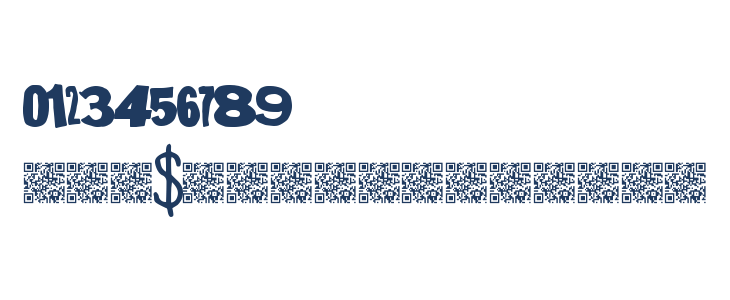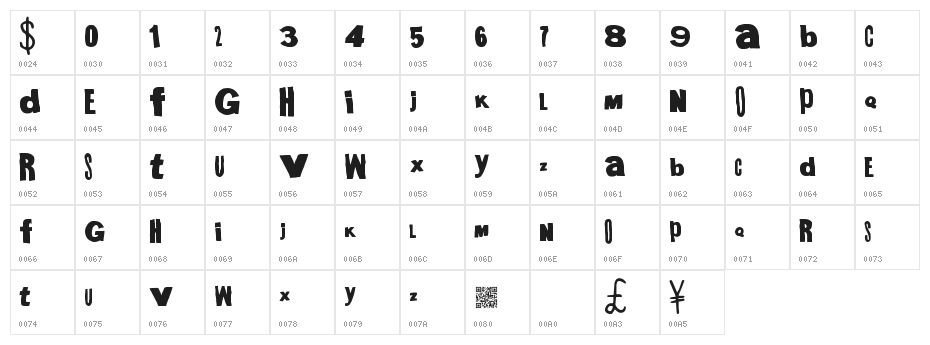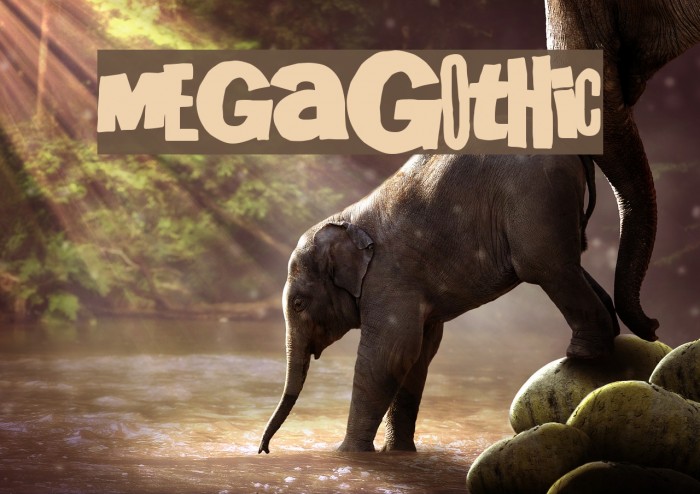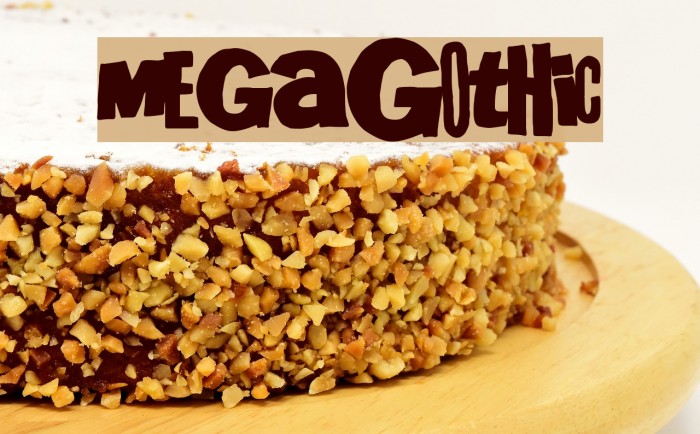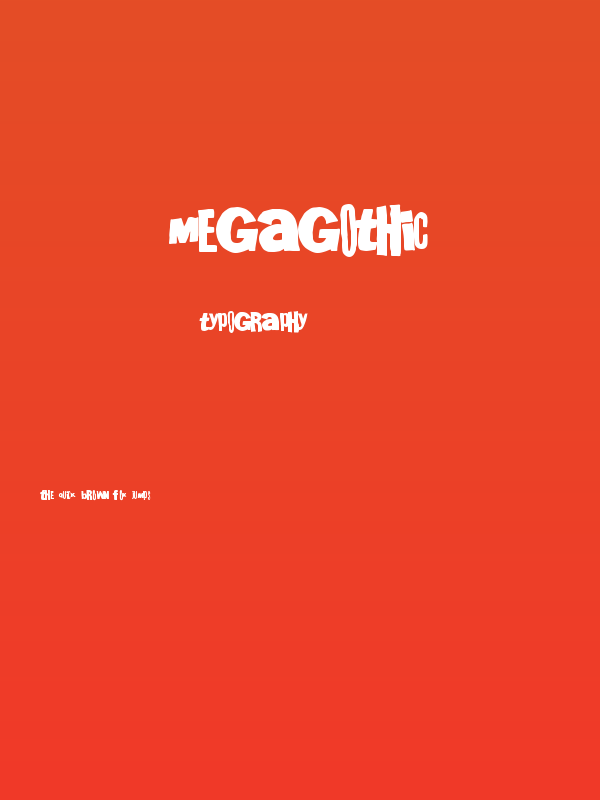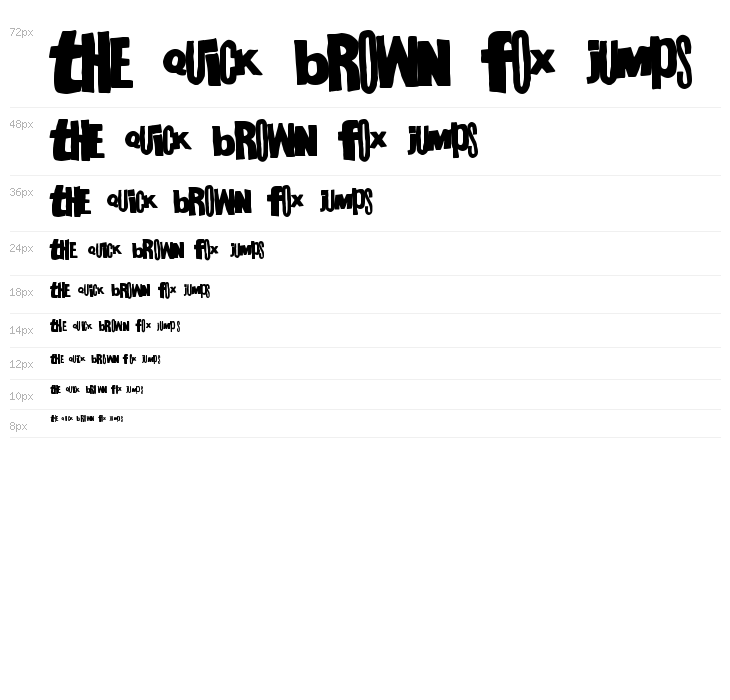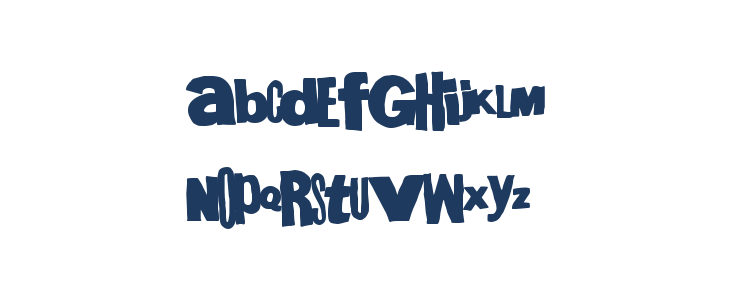
MegaGothic Font
MegaGothic Description
This font features a bold and playful design with exaggerated, chunky letterforms that convey a sense of fun and creativity. The characters are highly stylized, with varying widths and heights, giving it a dynamic and energetic appearance. The uppercase and lowercase letters maintain a consistent whimsical style, while the numbers and special characters integrate seamlessly into the overall design. This font's unique and eye-catching style makes it ideal for projects that require a bold statement.
| Overall Style | Playful, Energetic, Whimsical |
| Use Case | Headlines, Posters, Branding |
| Proposed Projects | Ideal for children's books, playful branding, posters, and creative advertising. |